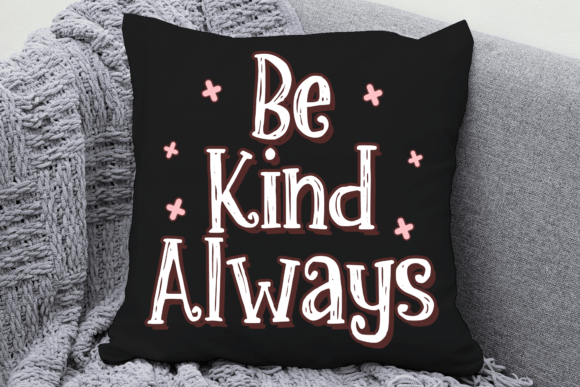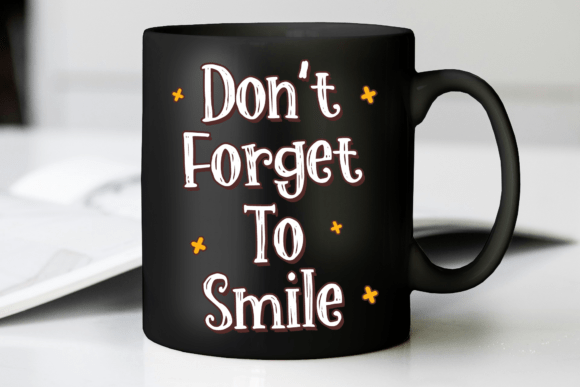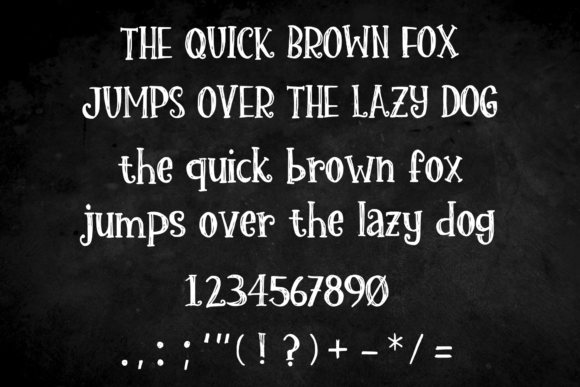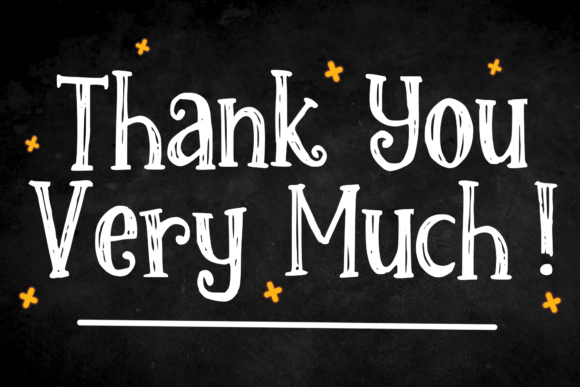
Introducing Classic Handmade: The Ultimate Retro Display Font
Are you tired of using the same old fonts in your design projects? Do you want to add a touch of nostalgia and playfulness to your creations? Look no further than Classic Handmade, a unique and engaging retro display font that’s sure to elevate your designs to remarkable heights.
Inspired by Vintage Comics and Cartoons
Classic Handmade draws inspiration from the playful energy of vintage comics, cartoons, and classic lettering. This font is perfect for designers and crafters who want to add a dash of retro charm to their work. With its bold and eye-catching design, Classic Handmade is sure to grab attention and leave a lasting impression.
Perfect for a Variety of Creative Projects
Classic Handmade is a versatile font that’s perfectly tailored for various creative exploits, including:
- Snappy Sticker Designs: Add a playful touch to your stickers with Classic Handmade’s bold and colorful design.
- Eye-Catching T-Shirt Prints: Create stunning t-shirt prints that are sure to turn heads with this engaging retro font.
- Stunning Logo Concepts: Use Classic Handmade to create unique and memorable logo concepts that will set your brand apart.
- Magnetizing Magazine or Book Covers: Add a touch of nostalgia and sophistication to your magazine or book covers with this beautiful font.
- Lively Comic or Cartoon Illustrations: Bring your comic or cartoon illustrations to life with Classic Handmade’s playful and energetic design.
The Missing Ingredient for Your Designs
Classic Handmade is the missing ingredient to infuse your designs with an irresistibly cool flair. With its unique and engaging design, this font is sure to add a touch of personality to your creations. Whether you’re a designer, crafter, or DIY enthusiast, Classic Handmade is the perfect choice for anyone looking to add a dash of retro charm to their work.
Key Features of Classic Handmade
Here are some of the key features that make Classic Handmade a standout font:
- Retro-Inspired Design: Classic Handmade draws inspiration from vintage comics, cartoons, and classic lettering.
- Bold and Eye-Catching: This font is designed to grab attention and leave a lasting impression.
- Versatile: Classic Handmade is perfect for a variety of creative projects, from stickers and t-shirt prints to logo concepts and magazine covers.
In conclusion, Classic Handmade is a unique and engaging retro display font that’s perfect for designers and crafters who want to add a touch of nostalgia and playfulness to their work. With its bold and eye-catching design, versatility, and ease of use, this font is sure to elevate your designs to remarkable heights. So why wait? Unleash Classic Handmade into your design projects today and watch your creations come to life!